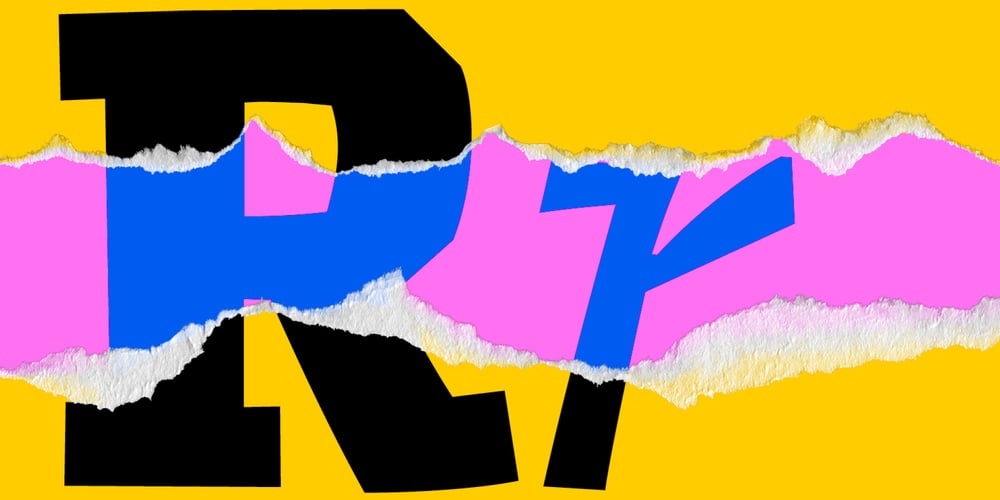
Rezak Font Family was designed by Anya Danilova and published by TypeTogether. Rezak contains 10 styles and family package options. Nothing is hidden in the simplistic forms and overt aesthetic of Anya Danilova’s Rezak font family. Rezak is not a type family directly from the digital world, but was inspired by the stout presence of cutting letters out of tangible material: paper, stone, and wood. With only a few cuts, the shapes remain dark and simple. With more cuts, the shapes become lighter and more defined, resulting in a dynamic type family not stuck within one specific category.The Black and medium weights began as one approach before separating into display and text categories. The four text weights were created through pendulum swings in design direction that experimented with contrast, angles, tangent redirections, and the amount of anomalies allowed. The text weights are vocal when set larger than ten points and subtle at smaller sizes. The tech-heavy Incised display style came last, employing a surprising range of trigonometric functions to make it behave exactly as desired. Its look can result in something distinctive and emotional or completely over-the-top.Most normal typefaces change only in thickness; Rezak changes in intention, highlighting the relationship between dark and light, presence and absence, what’s removed and what remains. Rezak’s Black and Incised display styles are like a shaft of light in reverse and are perfect in situations of impact: websites, headlines and large text, gaming, call-outs, posters, and packaging. The tone works for something from youthful or craft-oriented to organic and natural products. Try these two in logotypes, complex print layering, branding, and words-as-pattern for greater experimentation.The text styles are bold, energetic, well informed, and round out the family with four weights (Regular, Semibold, Bold, Extrabold) and matching italics for a family grand total of ten. These jaunty styles work well in children’s books, call-outs, movie titles, and subheads for myriad subjects such as architecture, coffee, nature, cooking, and other rough-and-tumble purposes.Rezak’s crunchy letters are meant to expose rough, daring, or dramatic text. A further benefit is that this family is not sequestered within one specific genre or script, so it can be easily interpreted for other scripts, such as its current Latin and extended Cyrillic which supports such neglected languages as Abkhaz, Itelmen, and Koryak. Rezak’s push toward creativity and innovation, with an eye on typography’s rich history, reinforces our foundry’s mission to publish invigorating forms at the highest function and widest applicability.